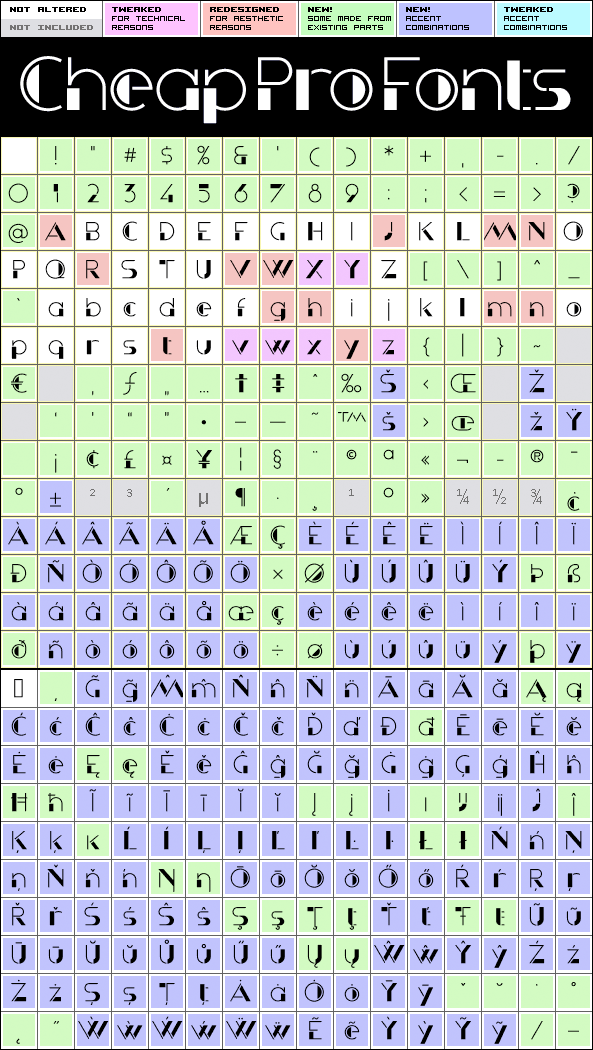
Inspired by the lettering on a perfume, Halmos extrapolated a complete uppercase alphabet, and he also created a matching lowercase. Now the character set has been expanded completely, and this stylish Art Deco font is ready to create some headlines, new logos and wordmarks in many more languages.
Krizi Amo Pro is a professionally reworked font that contains an extended character set for setting text in 65 languages requiring more than the basic A-Z!